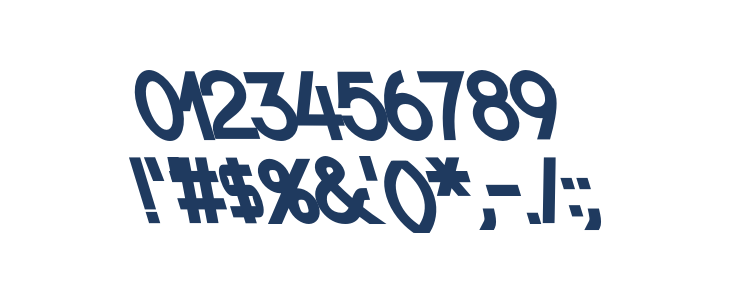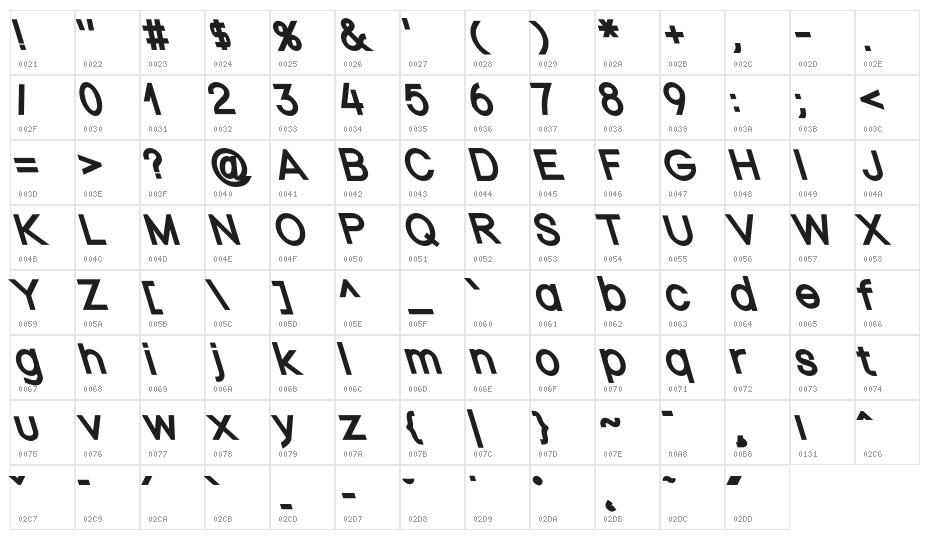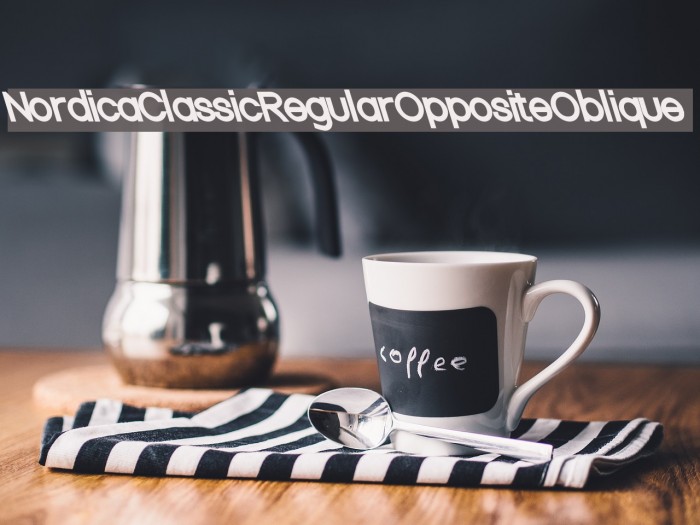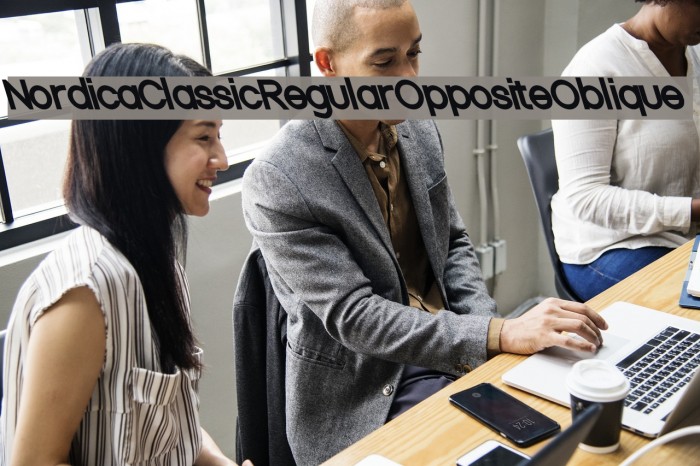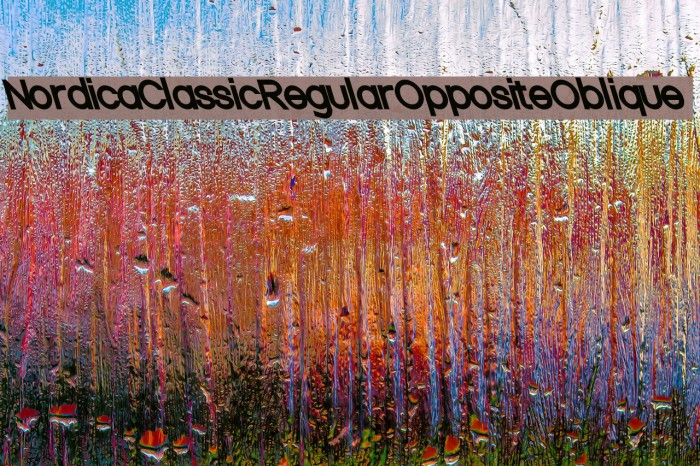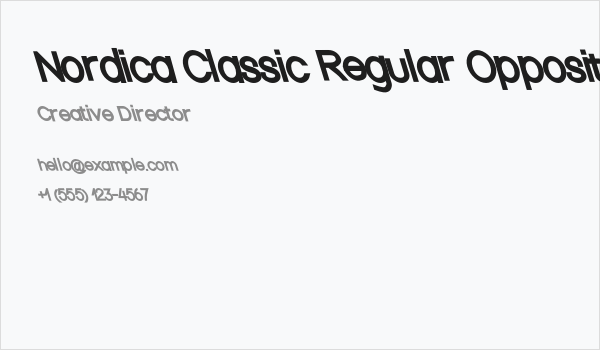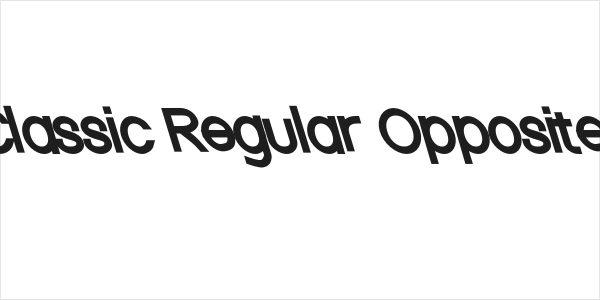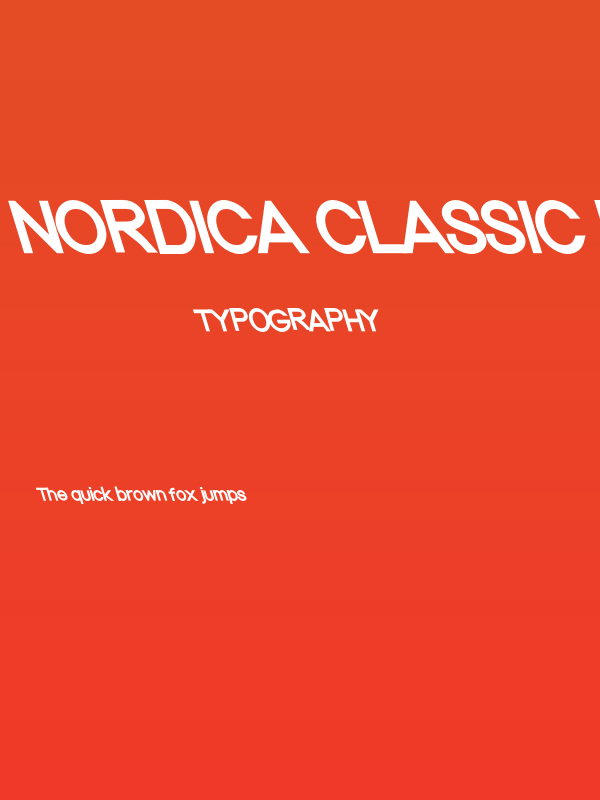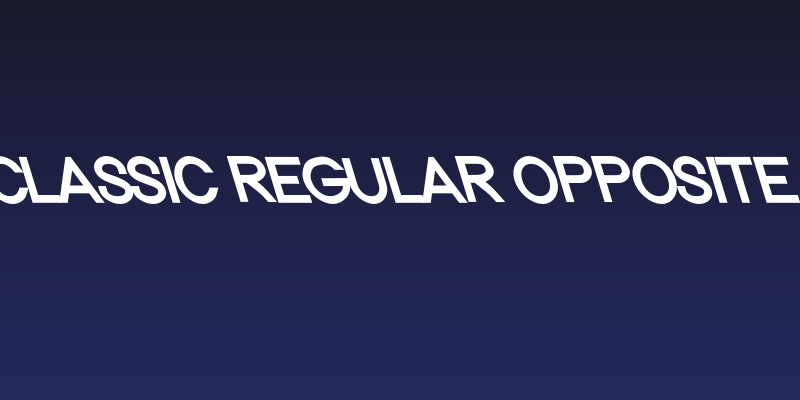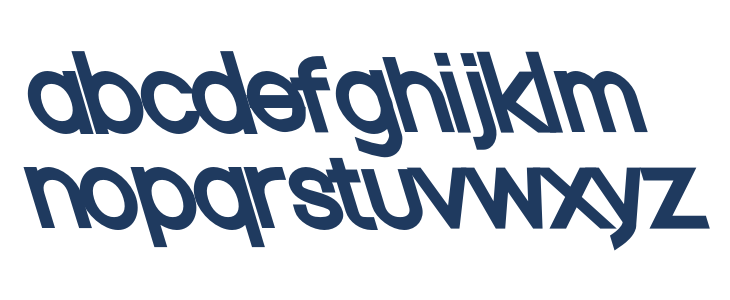
Nordica Classic Regular Opposite Oblique Font
Nordica Classic Regular Opposite Oblique Description
This font exhibits a bold and dynamic style with a distinct slant, giving it an oblique appearance. The characters are crafted with a consistent thickness, providing a uniform and cohesive look. The uppercase and lowercase letters maintain a strong presence, with rounded edges that soften the overall aesthetic. Numbers and special characters are designed to match the boldness of the alphabet, ensuring readability and impact. The font's modern and sleek design makes it suitable for a variety of applications where a strong visual statement is desired.
| Use Case | Headlines, Logos, Advertising |
| Proposed Projects | Ideal for branding, advertising, headlines, and digital media where a bold statement is needed. |